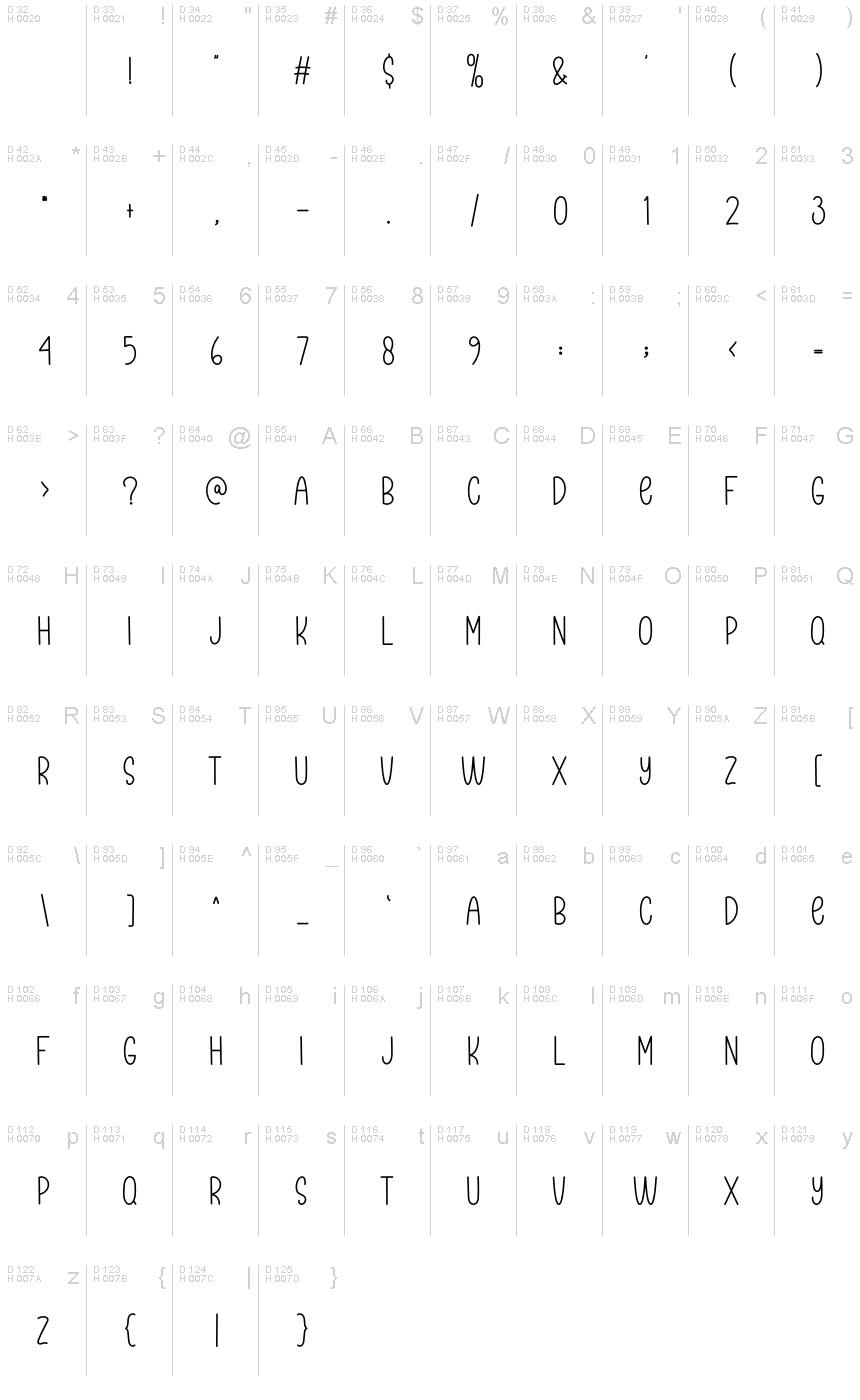
Question And Answer
"Question and Answer" is a captivating handwritten font designed by Andi Moz. With its condensed width and organic, expressive strokes, this font exudes a charming, personal touch. The freehand aesthetic lends an artisanal quality, making it well-suited for a variety of design applications, from product packaging and branding to editorial layouts and invitations. The font's versatility allows it to seamlessly blend creative expression with functional readability, making it a versatile choice for designers seeking to add a touch of authenticity and character to their work.
The font's distinctive features, such as the varied line weights and playful character shapes, instantly capture attention. "Question and Answer" is an excellent option for designers seeking to create a sense of authenticity, personalization, and handcrafted appeal in their designs.